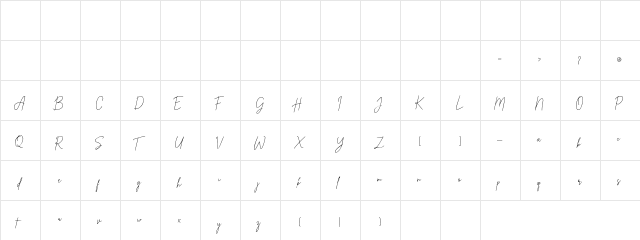
cristin Regular
| Designer | tedi rohmansyah |
Design Context for cristin Typeface
cristin is a composed and adaptable typeface that performs quietly and consistently across a wide range of design contexts.